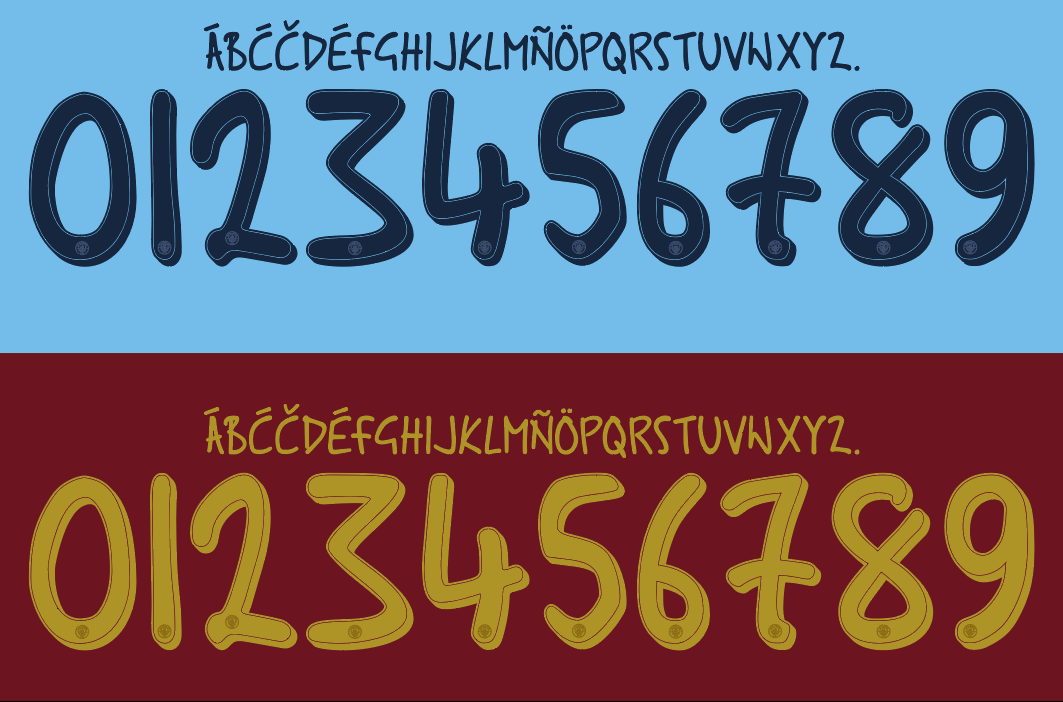
Manchester City-24-25 UCL / Cup Font Nameset AI Vector File
Download this Manchester City 2024-2025 UCL / Cup nameset as an editable .ai vector file. Styled in the 24/25 font, it’s ideal for recreating shirts from their Champions League and cup campaigns, capturing the look of City’s modern dominance. Perfect for digital artwork or custom football projects.